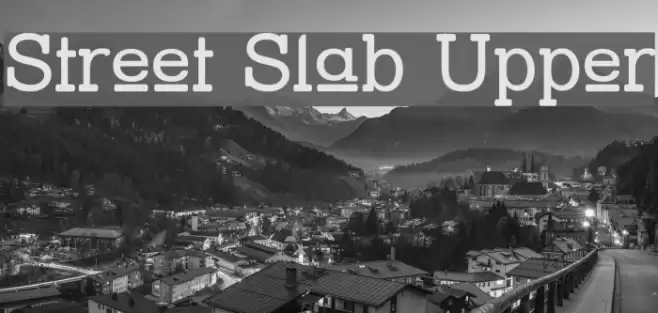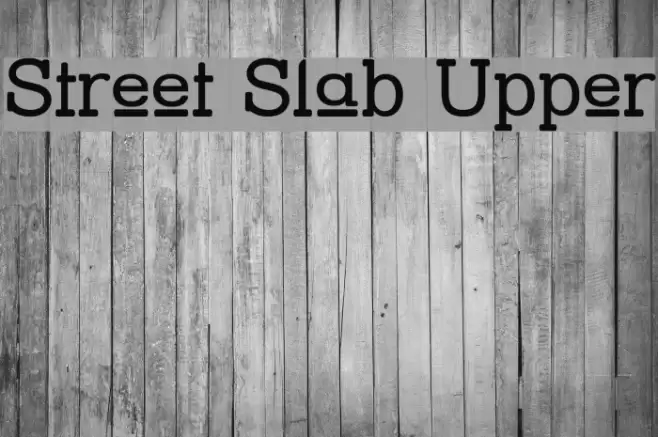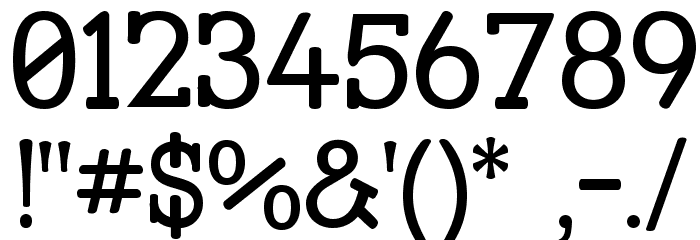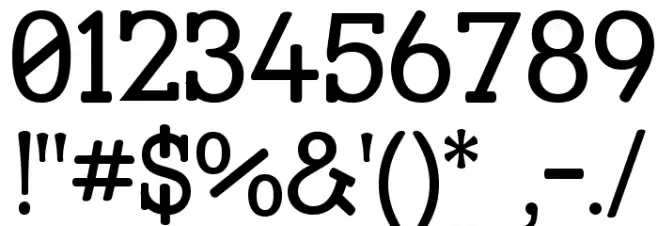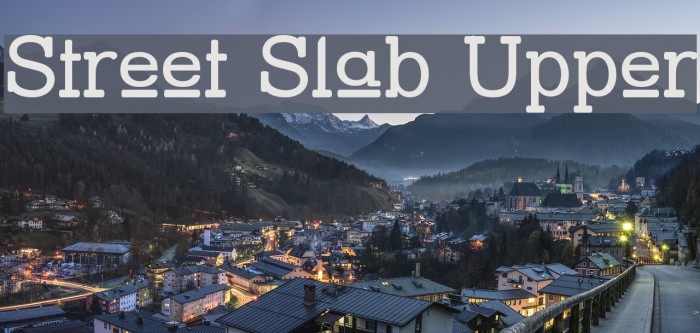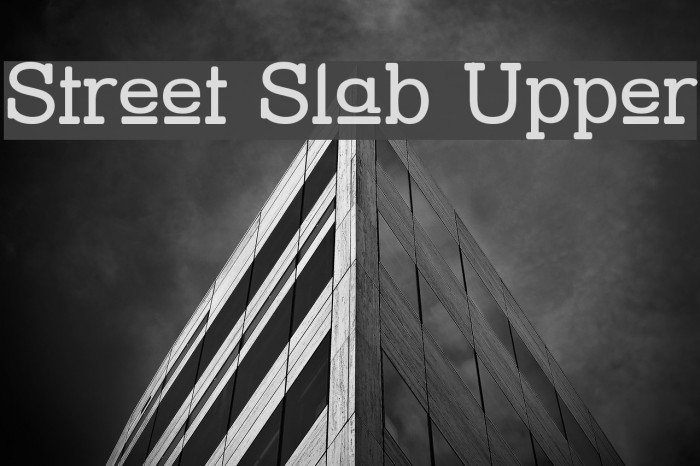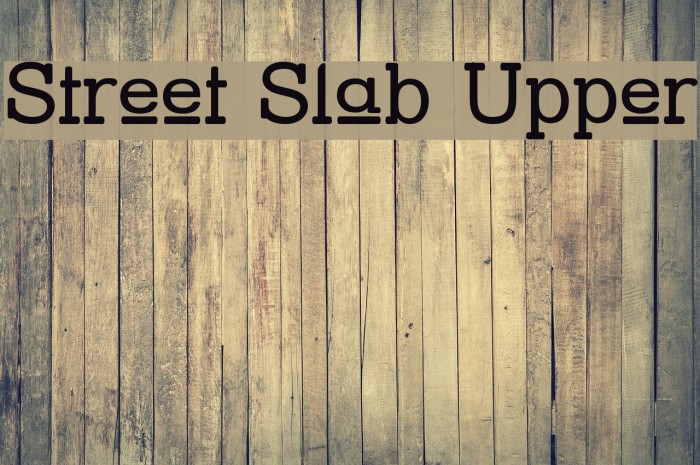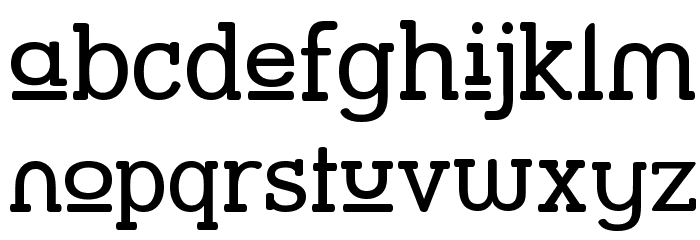
Street Slab Upper Font
Street Slab Upper Description
This font features a robust and bold slab serif design, characterized by thick, block-like serifs that give it a strong and authoritative presence. The uppercase letters are uniform and balanced, while the lowercase letters maintain a consistent height and width, ensuring readability. The numerals are clear and distinct, with a slight geometric influence that adds to the modern appeal. Special characters are well-integrated, maintaining the overall aesthetic. The font's structure is solid, making it suitable for impactful headlines and titles.
A bold slab serif font with strong, block-like serifs and a modern geometric influence from Uncategorized fonts.
- Proposed Projects: Ideal for branding, advertising, headlines, and any project requiring a strong, authoritative typeface.